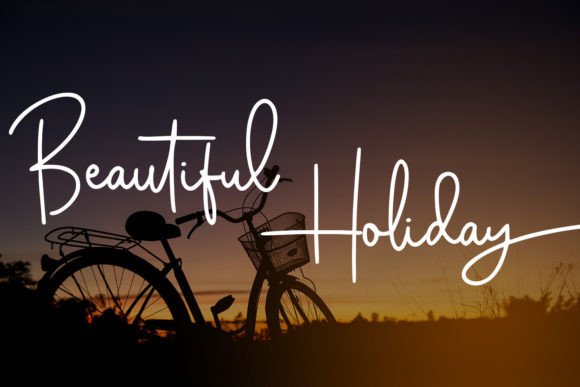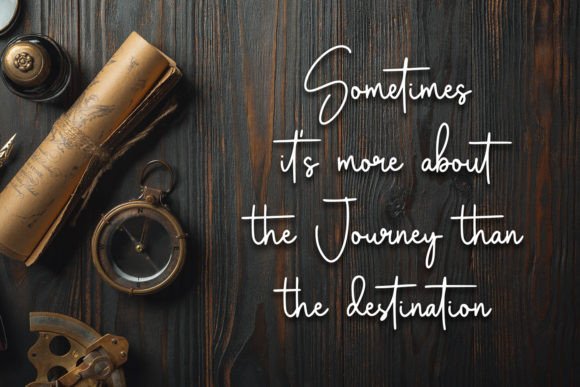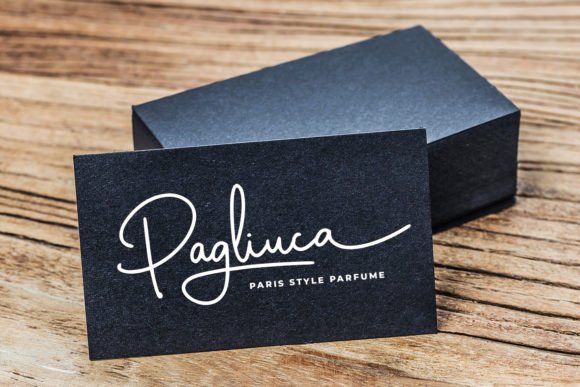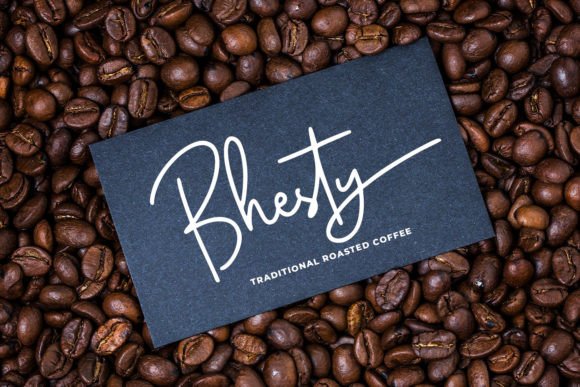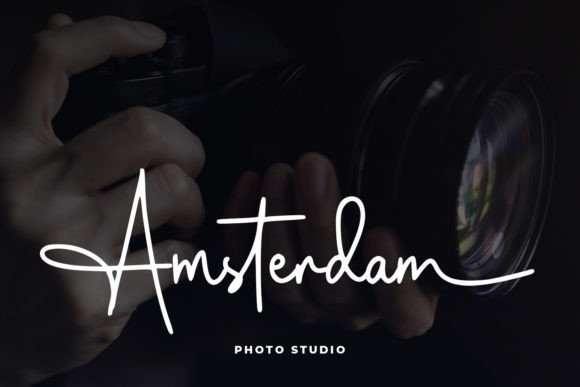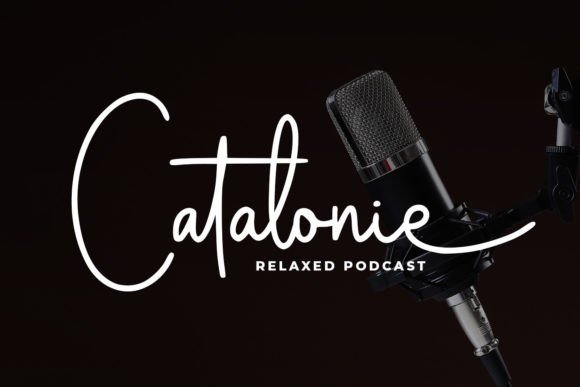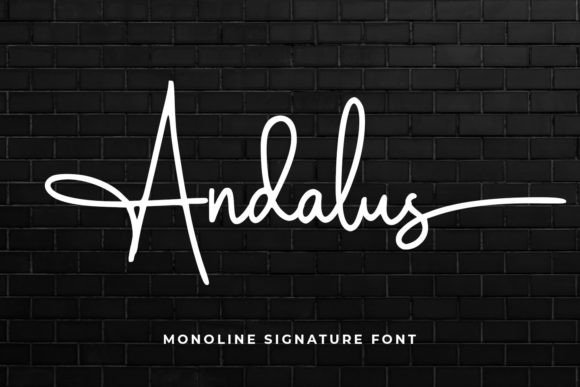
Introducing Andalus Font: The Ultimate Monoline Signature Font for Creative Designs
Are you a designer or crafter looking for a versatile and stylish font to elevate your creative projects? Look no further than Andalus Font, a stunning monoline signature font perfect for a wide range of applications. In this article, we’ll dive into the features and benefits of Andalus Font, and explore how it can enhance your branding, t-shirt designs, tote bag designs, cards, banners, social media, and more.
What is Andalus Font?
Andalus Font is a beautifully crafted monoline signature font, designed to add a touch of elegance and sophistication to your designs. Its sleek and modern aesthetic makes it perfect for creating stunning visual content that stands out from the crowd. With its clean lines and minimalist approach, Andalus Font is ideal for designers and crafters who want to add a professional touch to their work.
Key Features of Andalus Font
- Monoline signature style: Andalus Font features a sleek and modern monoline signature style, perfect for creating elegant and sophisticated designs.
- High-quality design: The font is carefully crafted with attention to detail, ensuring a high-quality design that looks great in any application.
- Versatile: Andalus Font is perfect for a wide range of creative projects, from branding and t-shirt designs to tote bag designs, cards, banners, and social media graphics.
- Easily customizable: The font is easy to customize, allowing you to adjust the text to fit your design needs.
Uses for Andalus Font
Andalus Font is an incredibly versatile font that can be used in a variety of creative projects. Here are some ideas to get you started:
- Branding: Use Andalus Font to create a professional and cohesive brand identity, perfect for logos, business cards, and letterheads.
- T-shirt designs: Create stunning t-shirt designs with Andalus Font, perfect for fashion brands, events, or personal projects.
- Tote bag designs: Add a touch of elegance to your tote bag designs with Andalus Font, great for brands, events, or everyday use.
- Cards and invitations: Use Andalus Font to create beautiful cards and invitations for special occasions, such as weddings, birthdays, or holidays.
- Banners and signage: Create eye-catching banners and signage with Andalus Font, perfect for events, promotions, or advertising.
- Social media graphics: Elevate your social media graphics with Andalus Font, great for creating engaging and professional-looking content.
Benefits of Using Andalus Font
So why choose Andalus Font for your creative projects? Here are just a few benefits:
- Professional look and feel: Andalus Font adds a touch of elegance and sophistication to your designs, giving them a professional look and feel.
- Time-saving: With Andalus Font, you can create stunning designs quickly and easily, saving you time and effort.
- Versatility: The font is perfect for a wide range of creative projects, allowing you to use it across multiple applications.
Andalus Font is a stunning monoline signature font that’s perfect for designers and crafters looking to elevate their creative projects. With its sleek and modern aesthetic, versatility, and ease of use, Andalus Font is an excellent choice for a wide range of applications. Whether you’re looking to create professional branding, stunning t-shirt designs, or beautiful cards and invitations, Andalus Font is the perfect tool for the job. So why wait? Download Andalus Font today and start creating amazing designs!